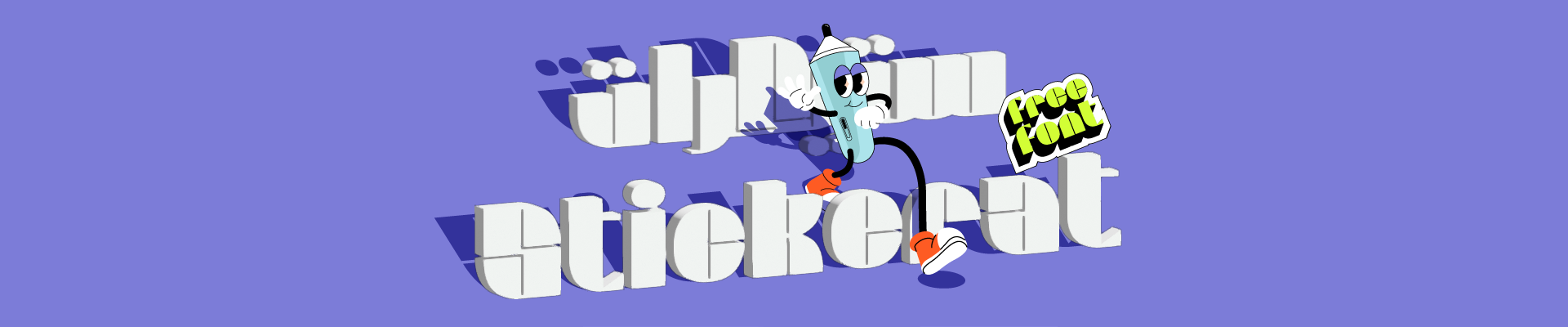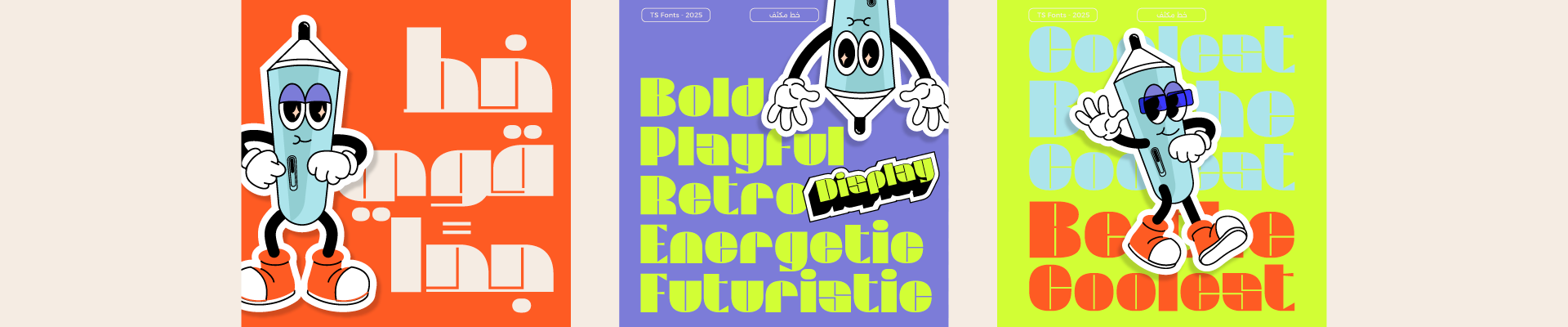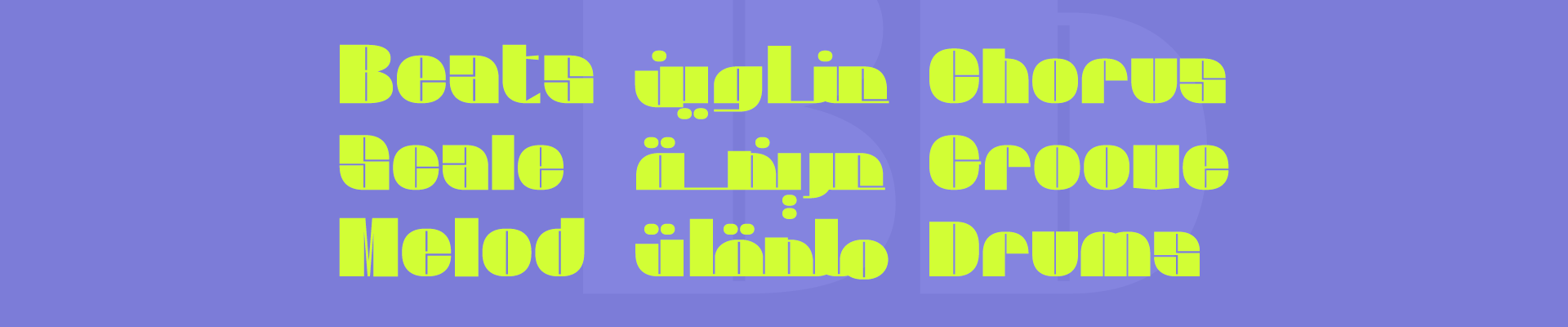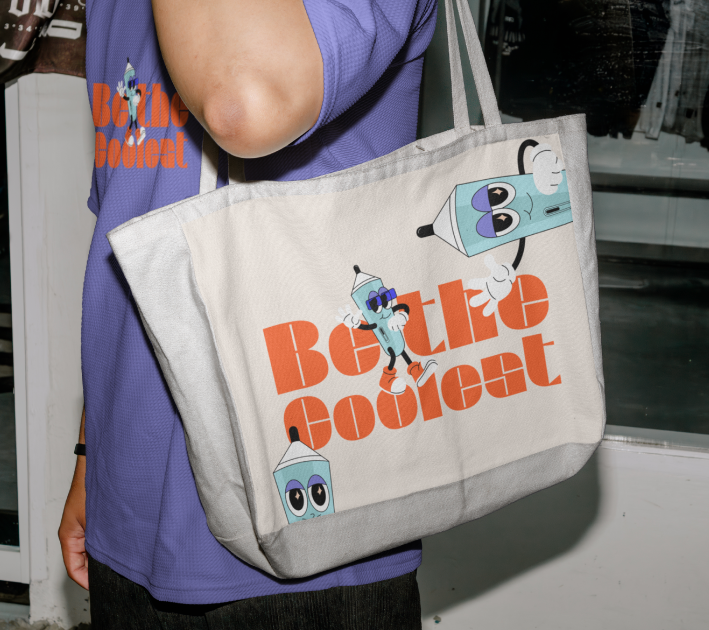
About Stickerat Font:
Stickerat Display is a bold and playful FREE font designed to grab attention. Perfect for headlines, posters, and logos, it brings a strong personality and energy to every letter, making your message stand out with confidence.